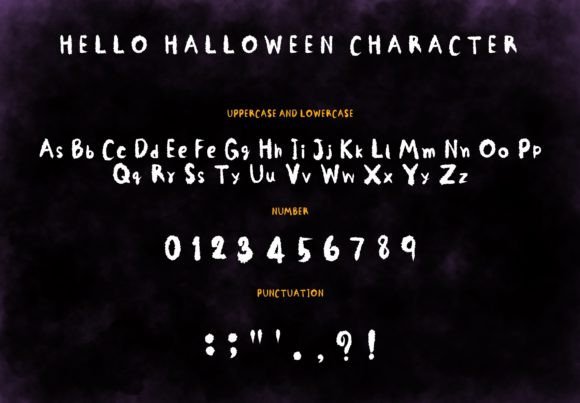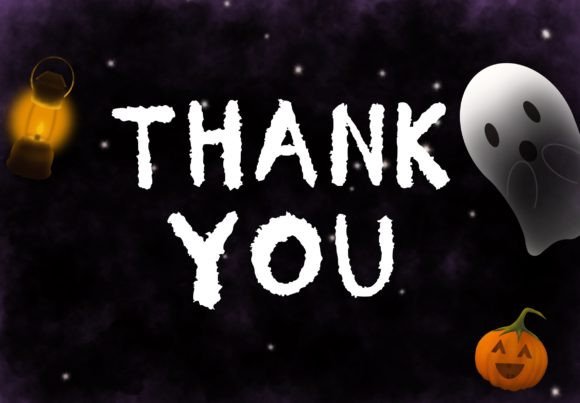
Spooky Season is Coming: Get Ready with the Hello Halloween Font
As a designer, there’s nothing quite like the rush of creativity that comes with a new project. Whether it’s a spooky Halloween invitation or a creepy horror-themed poster, the possibilities are endless. And for those moments when inspiration strikes, having the right tools at your disposal can make all the difference. That’s where the Hello Halloween Font comes in – a fun and spooky handwritten font that’s sure to add a touch of whimsy to your designs.
This charming font is perfect for all your Halloween or horror-themed projects, with its playful scary accent adding a layer of depth and personality to any design. As a designer, you know how valuable a versatile font can be – and the Hello Halloween Font is no exception. With its wide range of uses, from invitations to social media graphics, this font is sure to become a go-to for your spooky season projects.
Hello Halloween Font Key Features
- Font Family: A unique and spooky font family designed for Halloween and fall-themed designs.
- Unique Characteristics: Features a distressed, hand-drawn look with intricate details and textures, adding a spooky ambiance to designs.
Hello Halloween Font Review
As a designer, I was excited to dive into the “Hello Halloween Font” and see what it had to offer. Here’s my honest review:
- Unique and playful design that captures the essence of Halloween.
- High-quality font with crisp lines and clear lettering.
- Perfect for adding a spooky touch to your designs, from invitations to social media posts.
- Wide range of characters and glyphs, including international support.
- Limited flexibility – it’s a more rigid, stylized font that may not be suitable for complex or formal designs.
- No bold or italic variations available, which could limit its use in certain situations.
The “Hello Halloween Font” is a fun and engaging addition to any designer’s toolkit. While it may not be suitable for every project, its unique design and high-quality rendering make it a great choice for Halloween-themed or spooky-inspired designs. With a little creativity, it’s easy to see how this font could add a lot of personality to your work.
Tips for Getting the Most Out of the Hello Halloween Font
Use the font in bold and italic styles to create a sense of drama and emphasis.
Pair the font with other spooky and festive fonts to create a unique and eye-catching design.
Use the font in combination with Halloween-themed graphics and images to create a cohesive and festive design.
Use the Hello Halloween Font to create spooky and festive designs for Halloween, such as:
- Invitations and party decorations.
- Spooky and festive social media posts.
- Halloween-themed advertisements and marketing materials